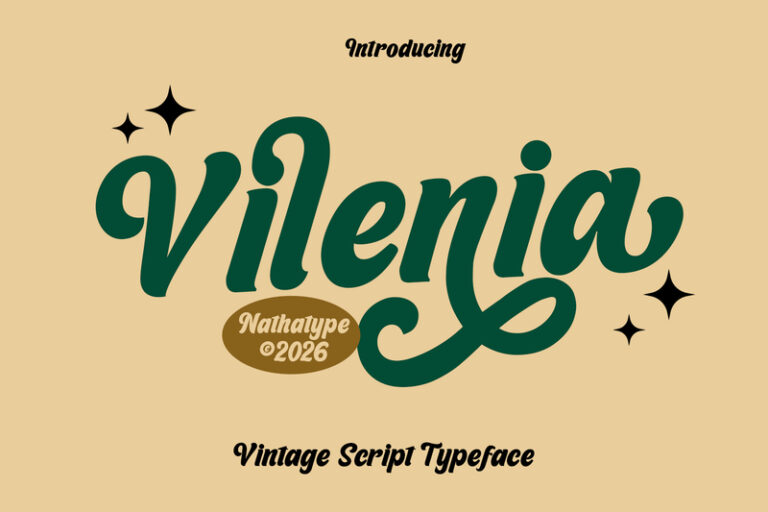
Vilenia is a beautifully crafted vintage script font. Built with a fairly thick weight, Vilenia captures the essence of classic hand-lettering while delivering a refined and expressive modern finish. This font is perfect for designers who want to create sophisticated, nostalgic designs with a strong visual presence. In addition, enjoy the features here.
- Ligatures
- Stylistic Sets
- Multilingual Supports
- Numerals and Punctuations
Vilenia fits in invitations, logos, quotes, branding, posters, and many more designs. Find out more ways to use this font by taking a look at the font preview.